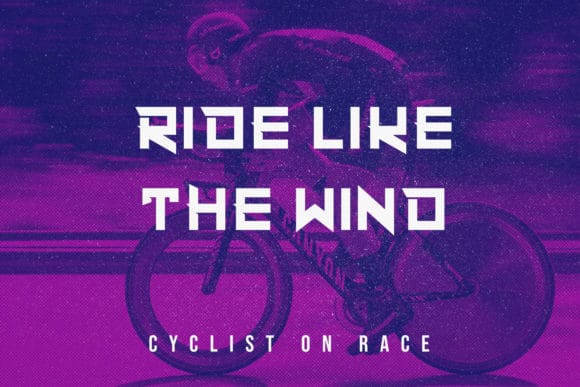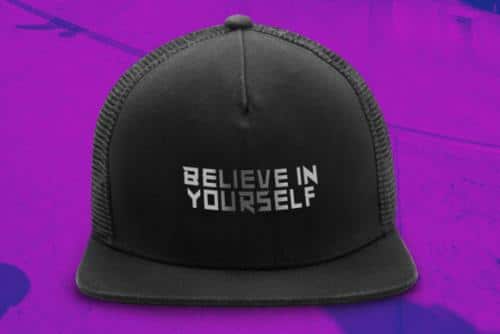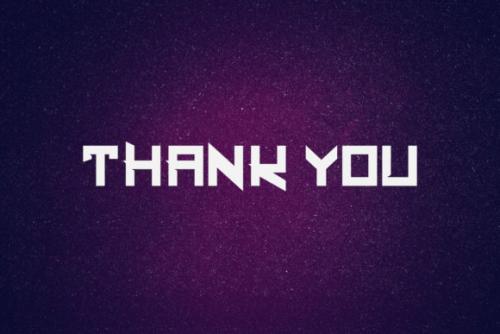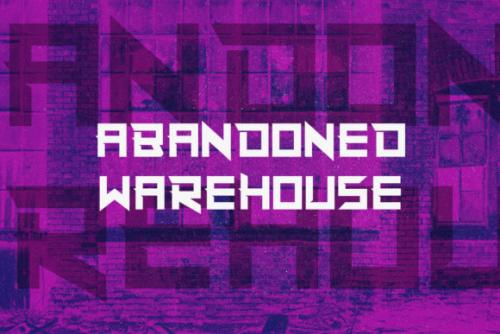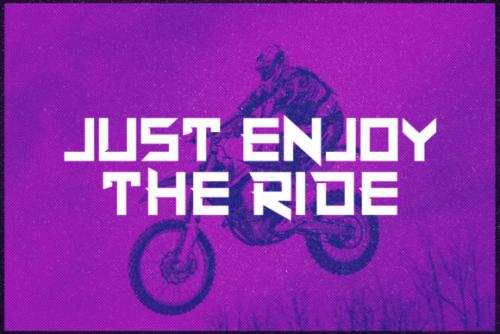
Super Maizen is a bold and futuristic display font ,inspired by the bold moves anybody has to make in order to stand out, the clean lines make it ideal for applications in multiple arrays of themes. Add this font to your favorite creative ideas and notice how it makes them come alive!